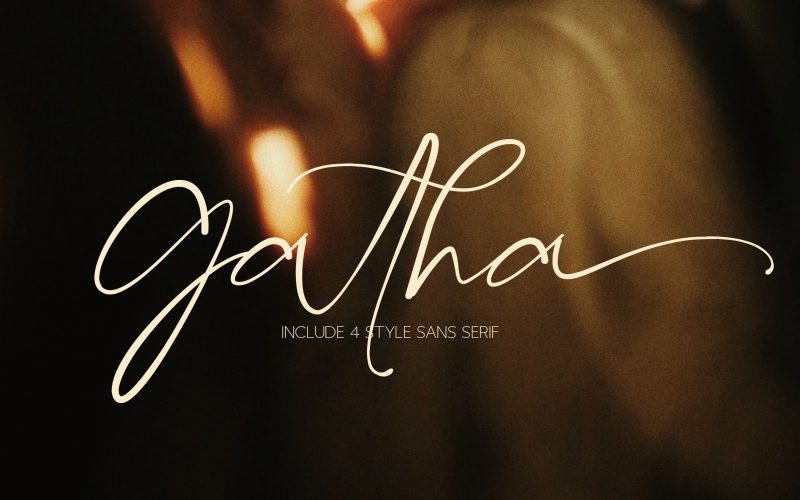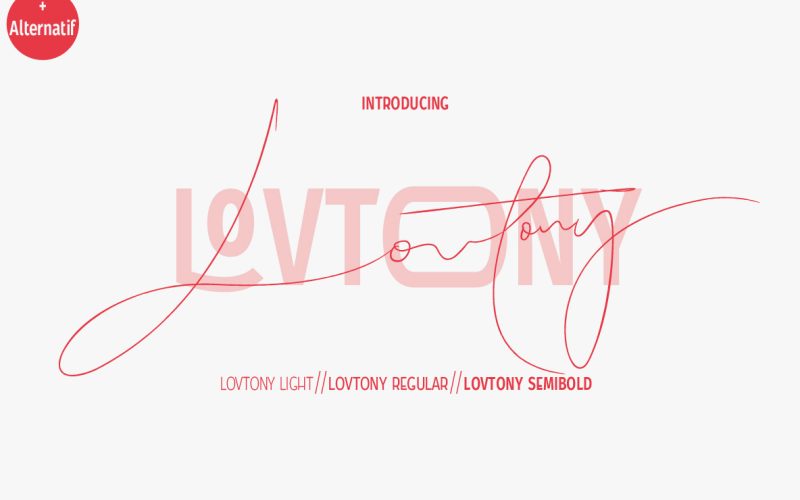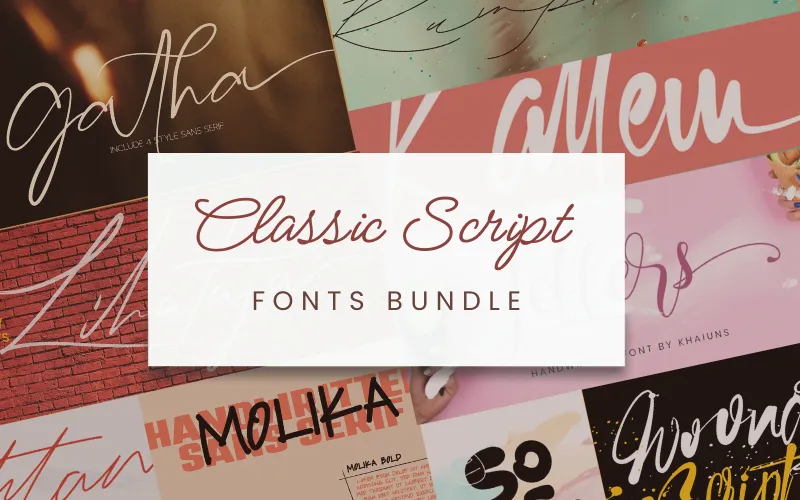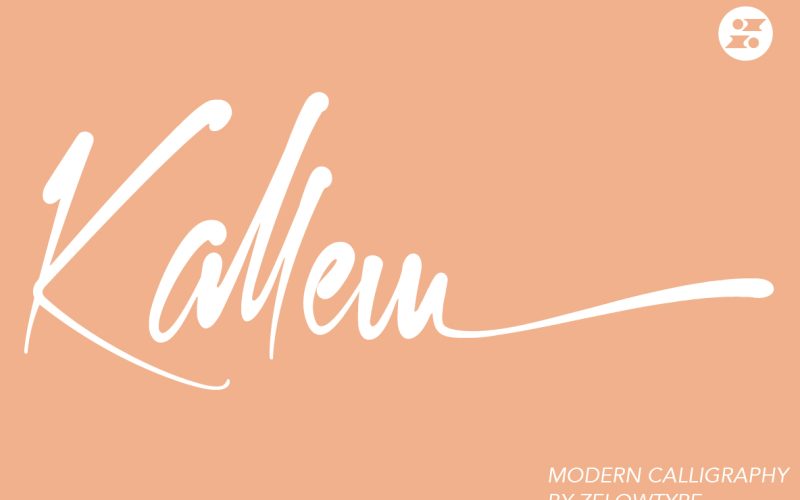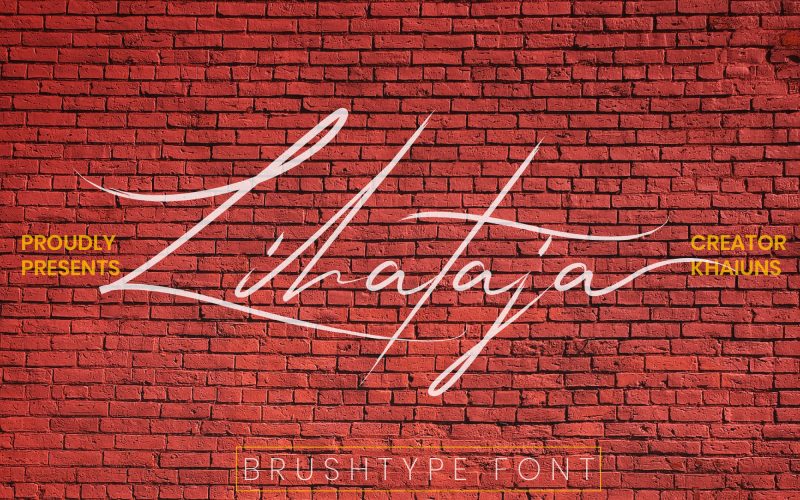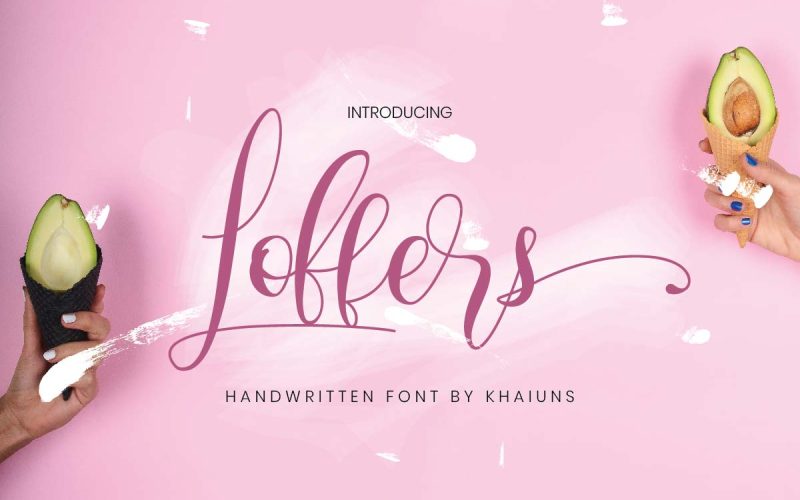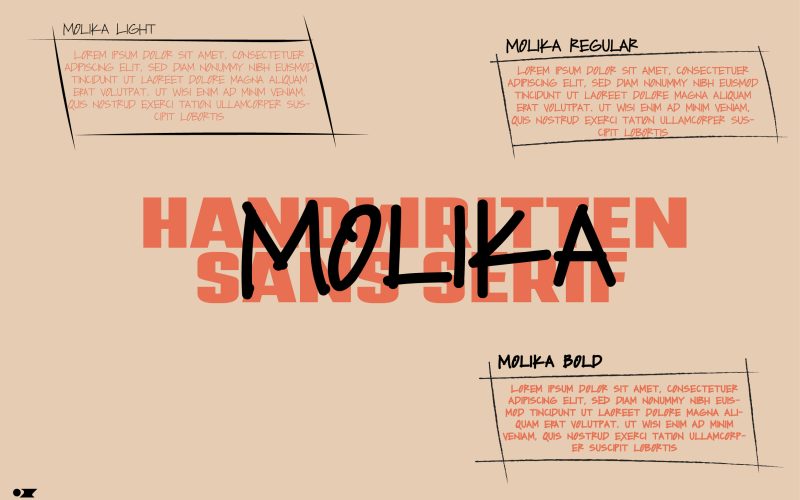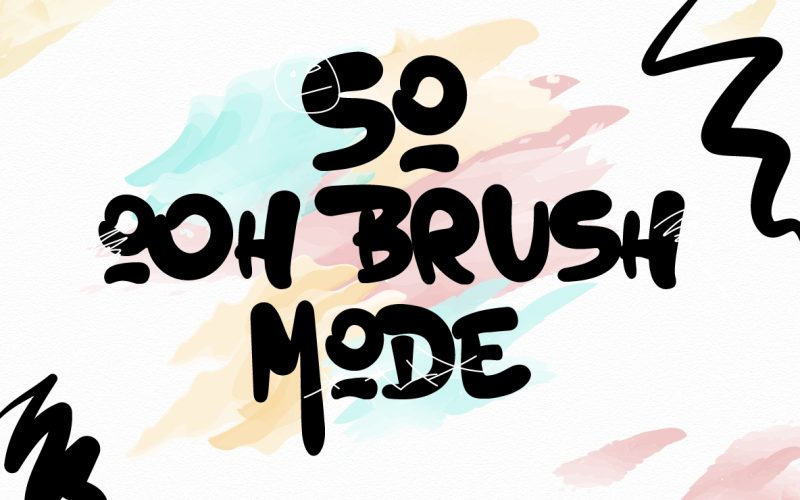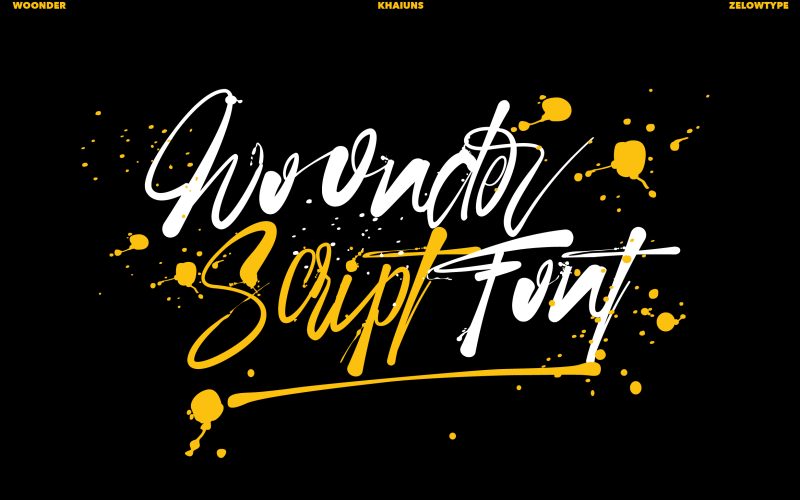
Classic Script Fonts Bundle
These script fonts blend brush, calligraphy, vintage, and retro aesthetics.
They include stylistic alternates, swashes, ligatures, and glyphs, allowing you to customize your typography to match any mood or project.
The Classic Script Fonts Include:
• Gatha Script Font: A graceful and feminine handwriting font for delicate designs.
• Kallem Script Font: A smooth and elegant modern script, ideal for classy branding.
• Kloftel Script Font: An original and powerful lettering font with dynamic nuances.
• Lihataja Script Font: A minimalist brush lettering font with a textured finish.
• Loffers Script Font: A fun and playful brush script that adds creative charm.
• Lovtony Script Font: A thin and flowing signature-style font with refined nuances.
• Mightam Script Font: A luxurious modern italic font with stylish curves.
• Molika Script Font: A bold typeface with unique character and strong appeal.
• Ohh Script Font: A strong, rounded, and playful typeface for friendly projects.
• Sattin Script Font: A classic and stylish script font with timeless elegance.
• Woonder Script Font: A bold and expressive brush lettering font, perfect for striking designs.
• Special Characters Included: Alternatives, Ligatures, Swashes, & Glyphs
• Categories Included: Script, Display, & Calligraphy
• Types Of Fonts Included: Brush, Texture, Vintage, & Retro
Preview Of The Classic Script Fonts:
Gatha Script Font
Kallem Script Font
Lihataja Script Font
Loffers Script Font
Lovtony Script Font
Mightam Script Font
Molika Script Font
Woonder Script Font
Ooh Script Font